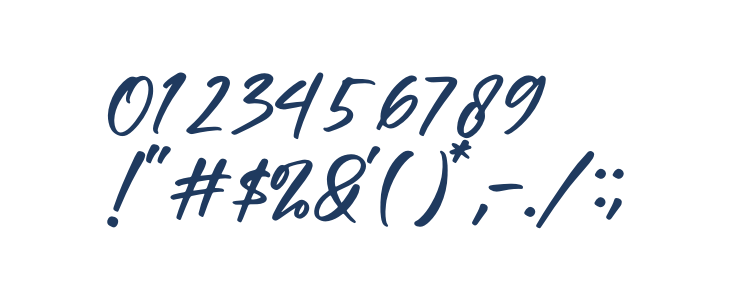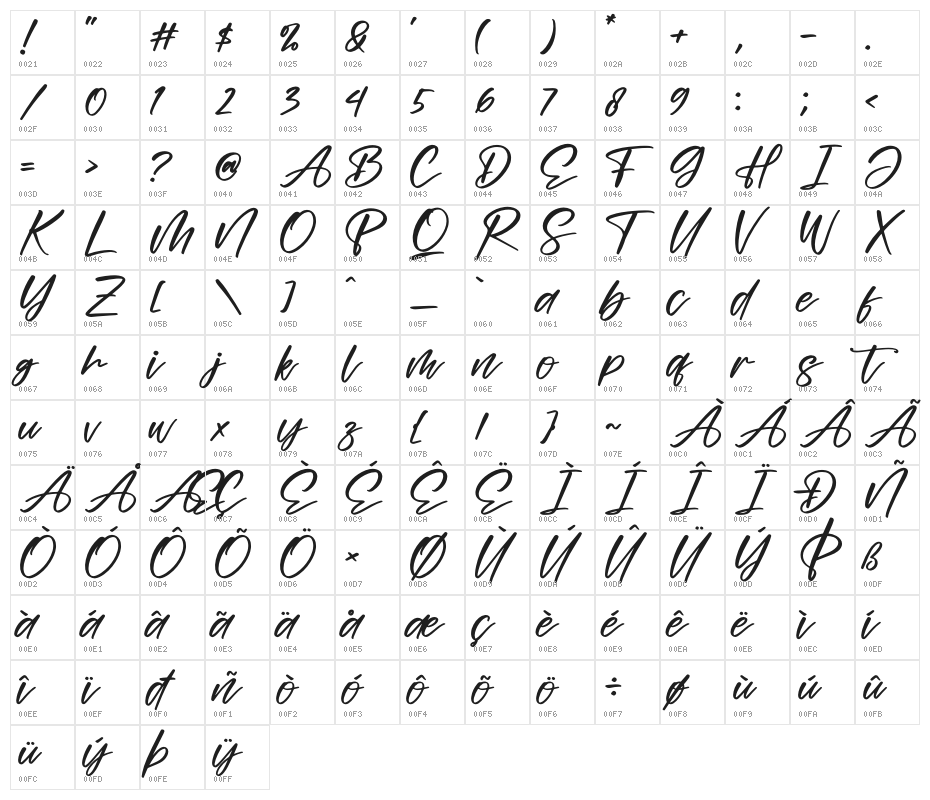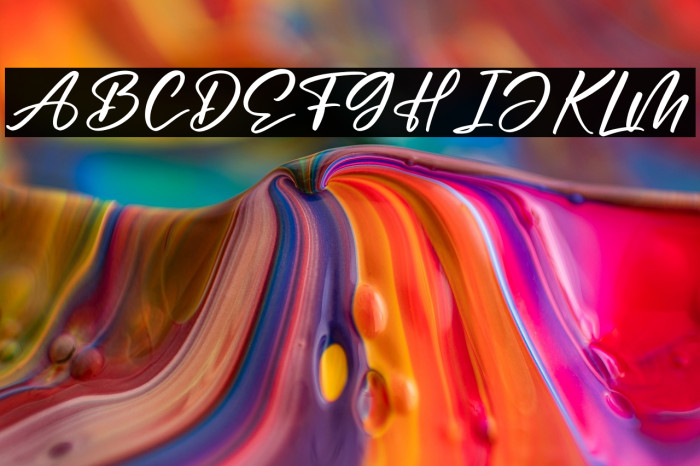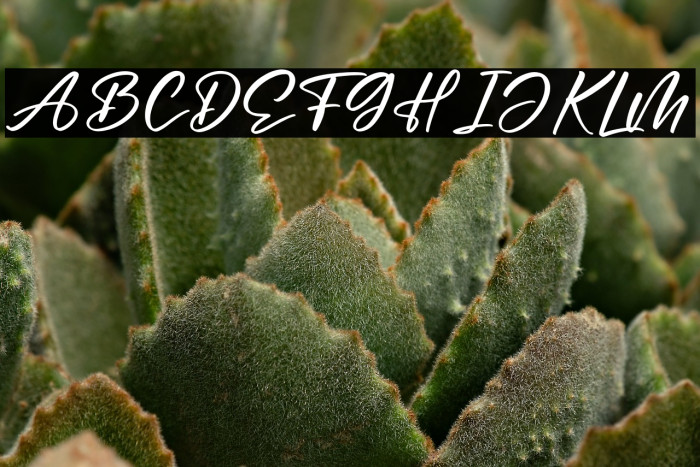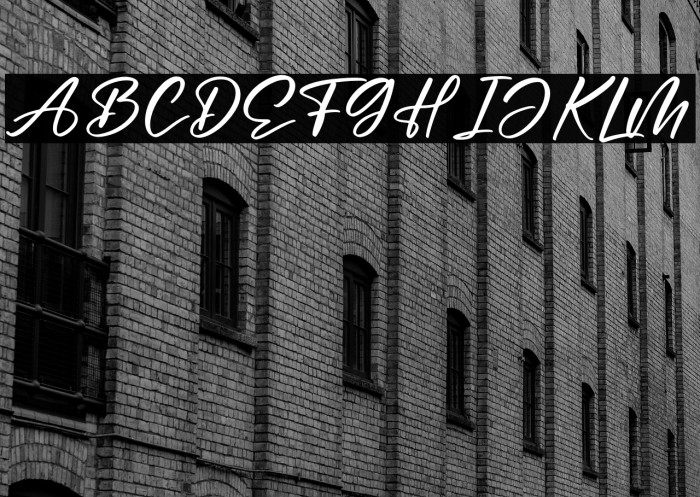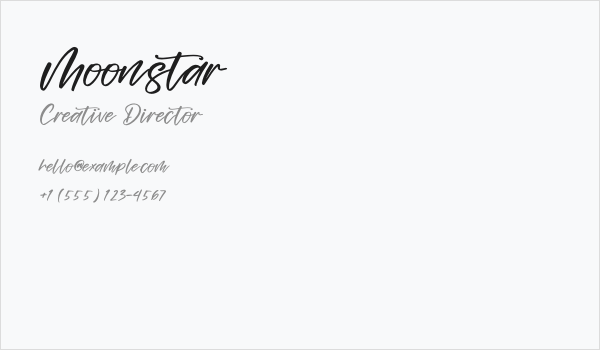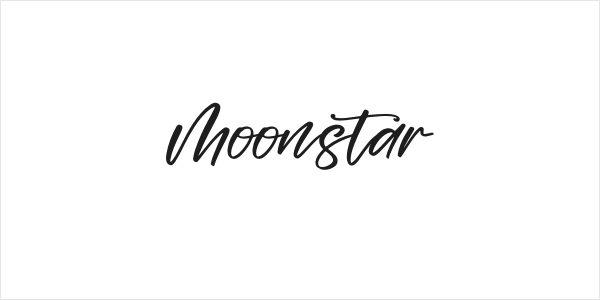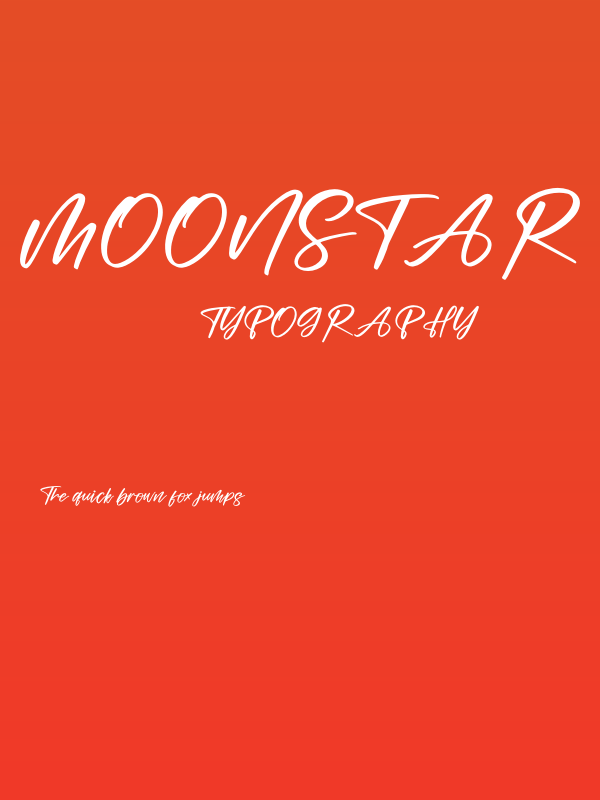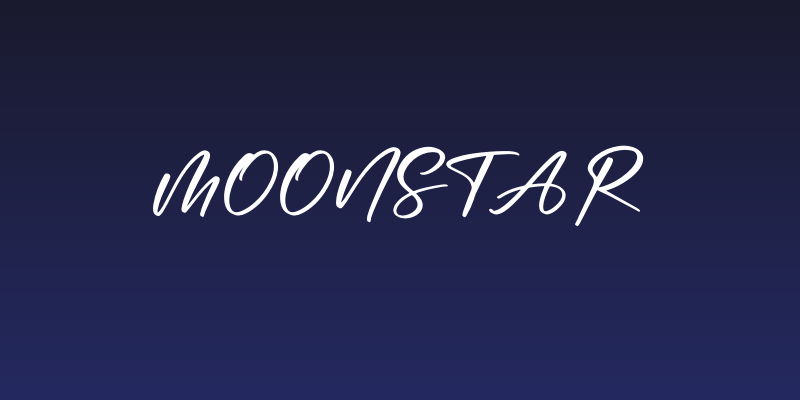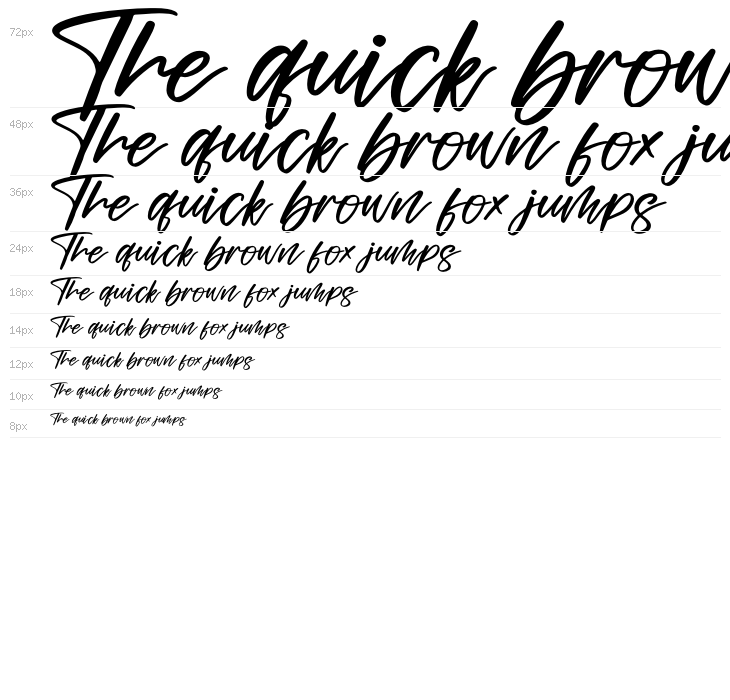
Moonstar Font
Moonstar Description
This font features a dynamic and expressive script style, characterized by its fluid, cursive strokes that convey a sense of elegance and movement. The uppercase letters are bold and slightly slanted, giving a sense of urgency and flair, while the lowercase letters maintain a consistent flow with smooth connections. The numerals are clear and bold, matching the overall style of the alphabet. Special characters are well-integrated, maintaining the font's cohesive look. This font's handwritten appearance makes it suitable for projects that require a personal touch.
| Proposed Projects | Ideal for wedding invitations, greeting cards, branding, and social media graphics. |